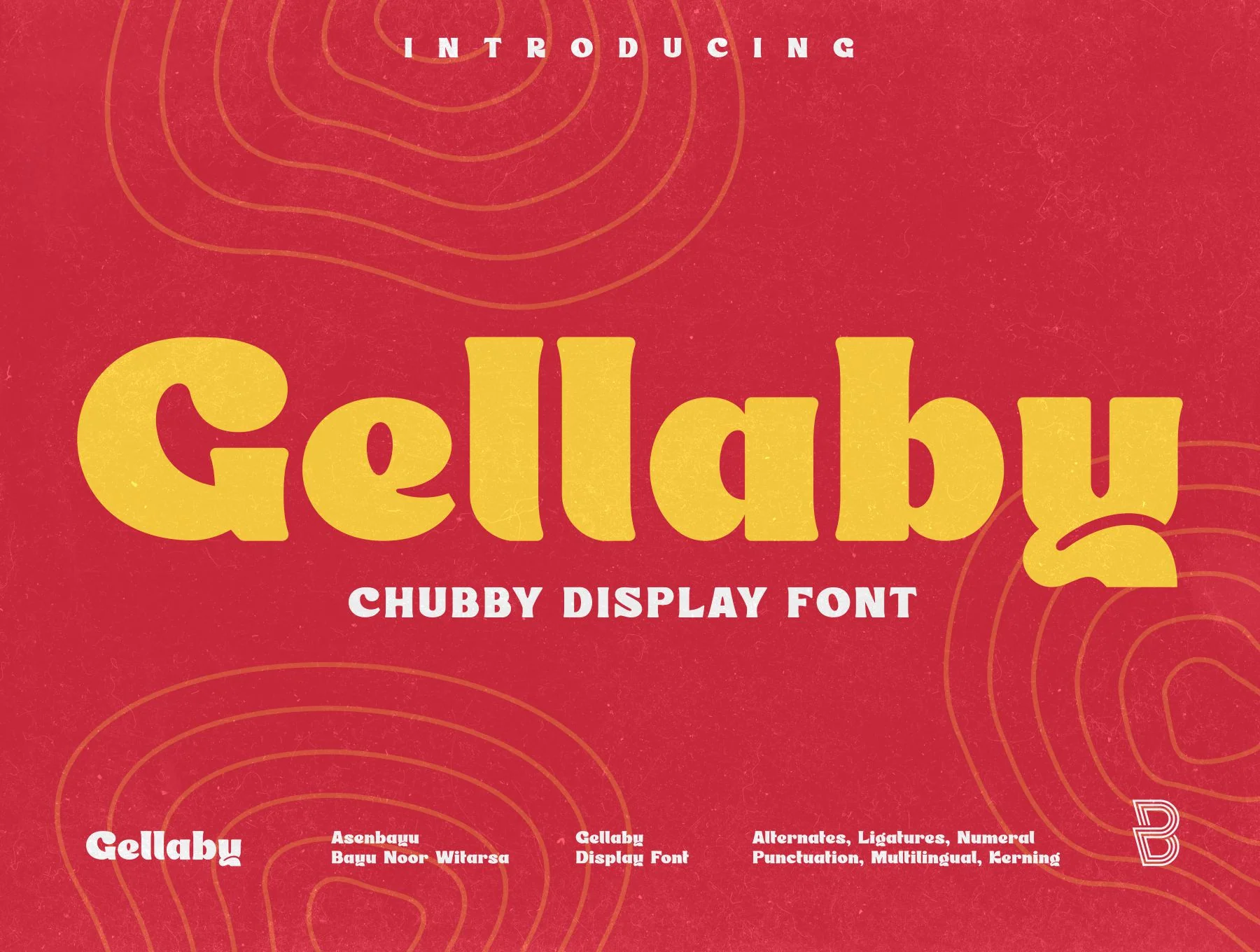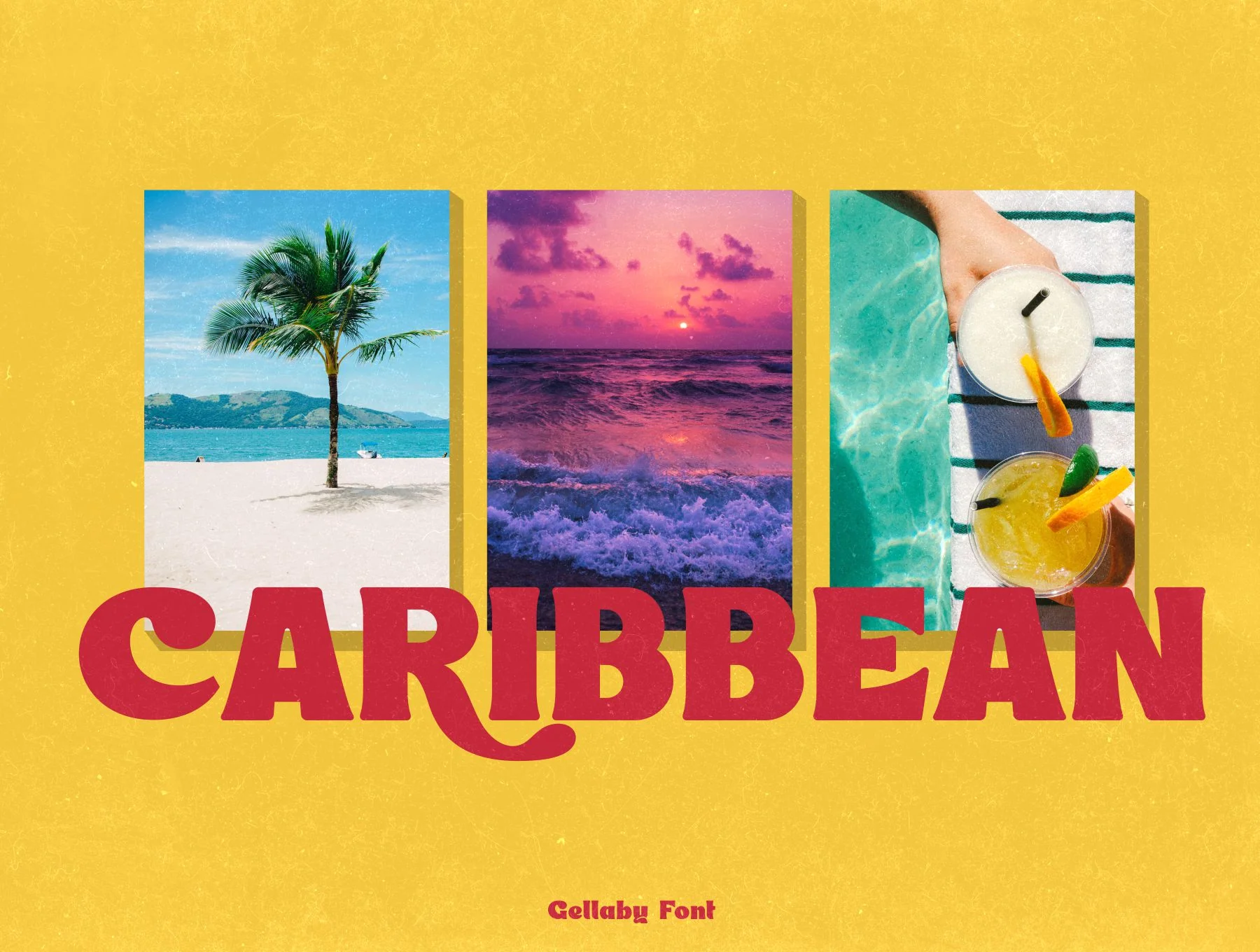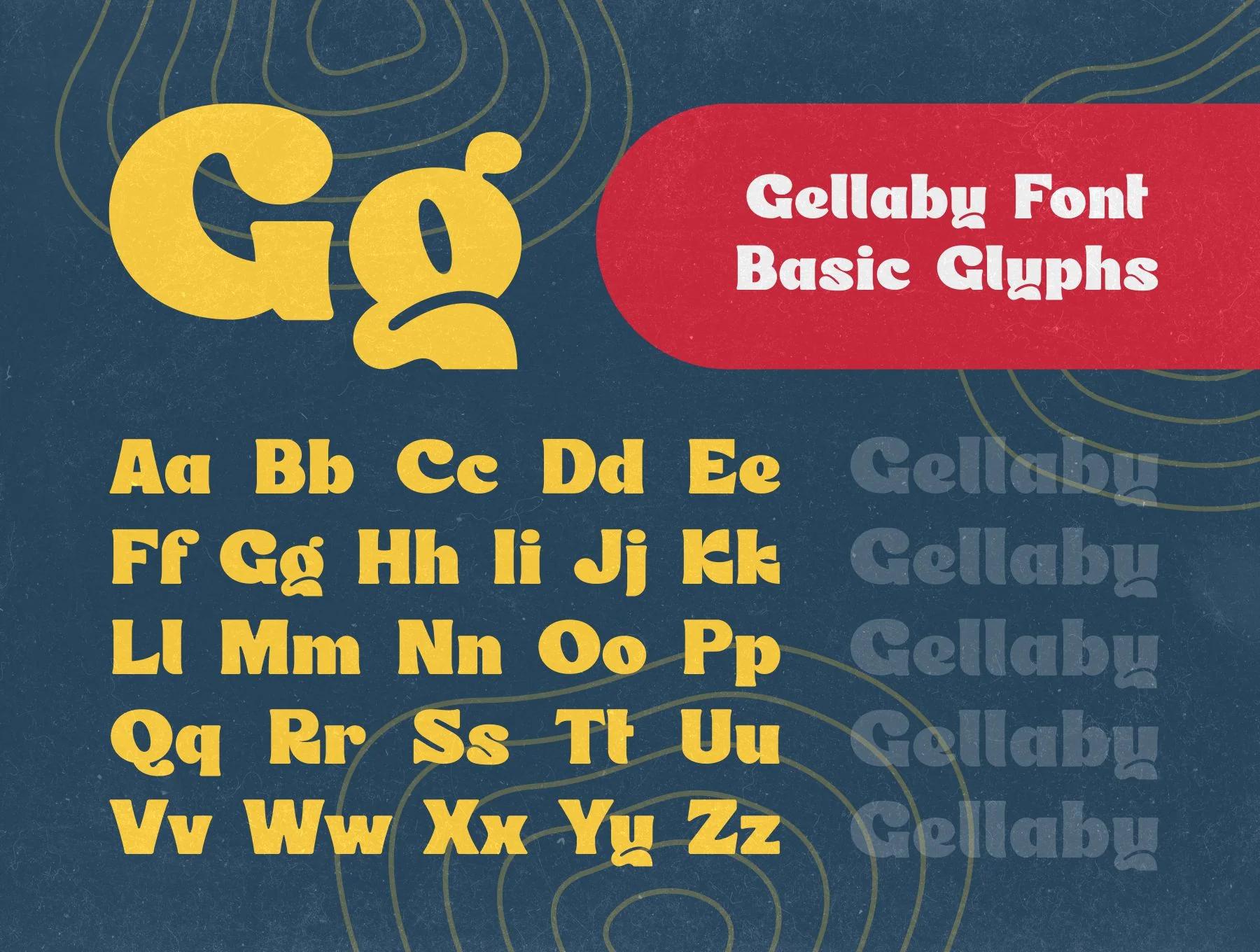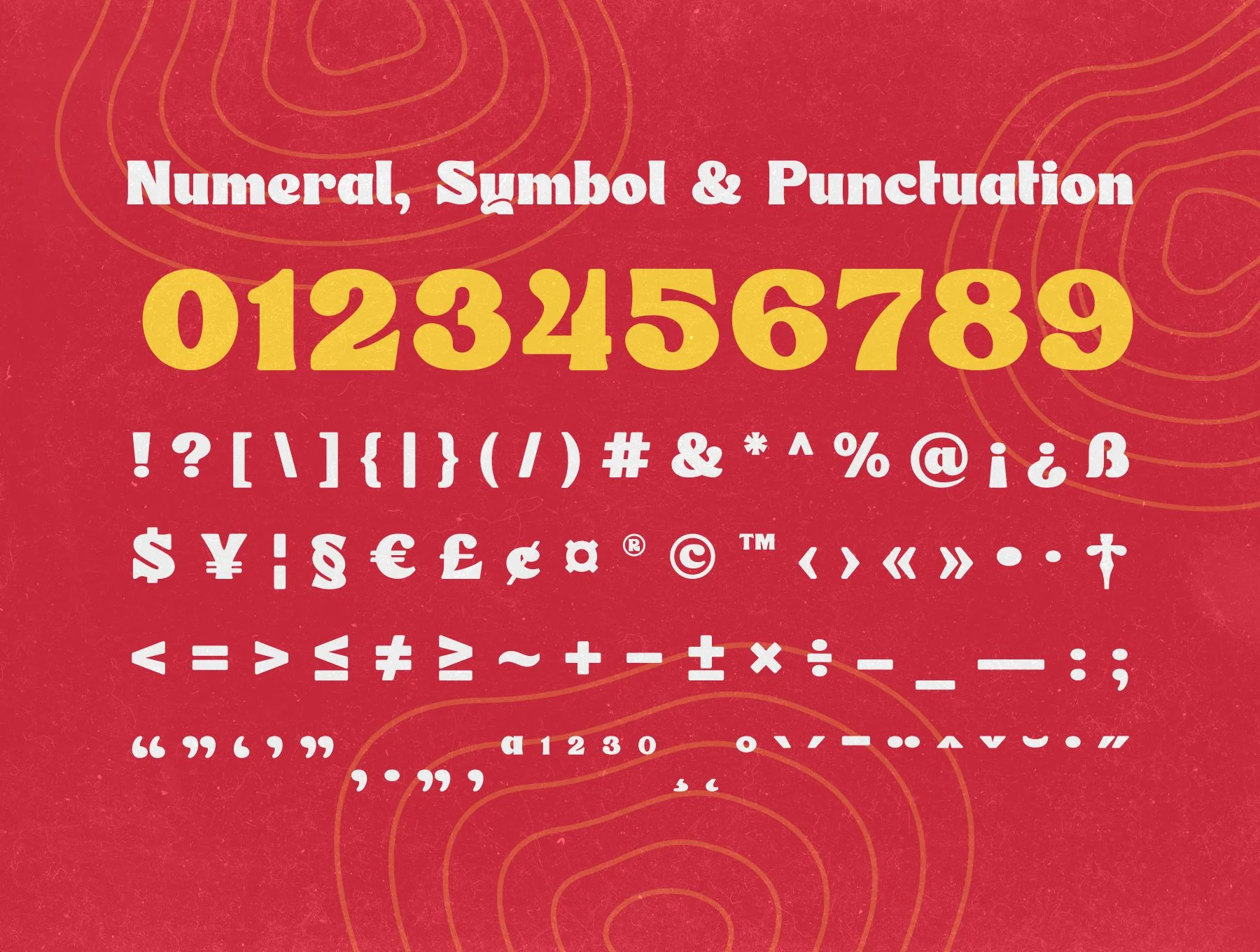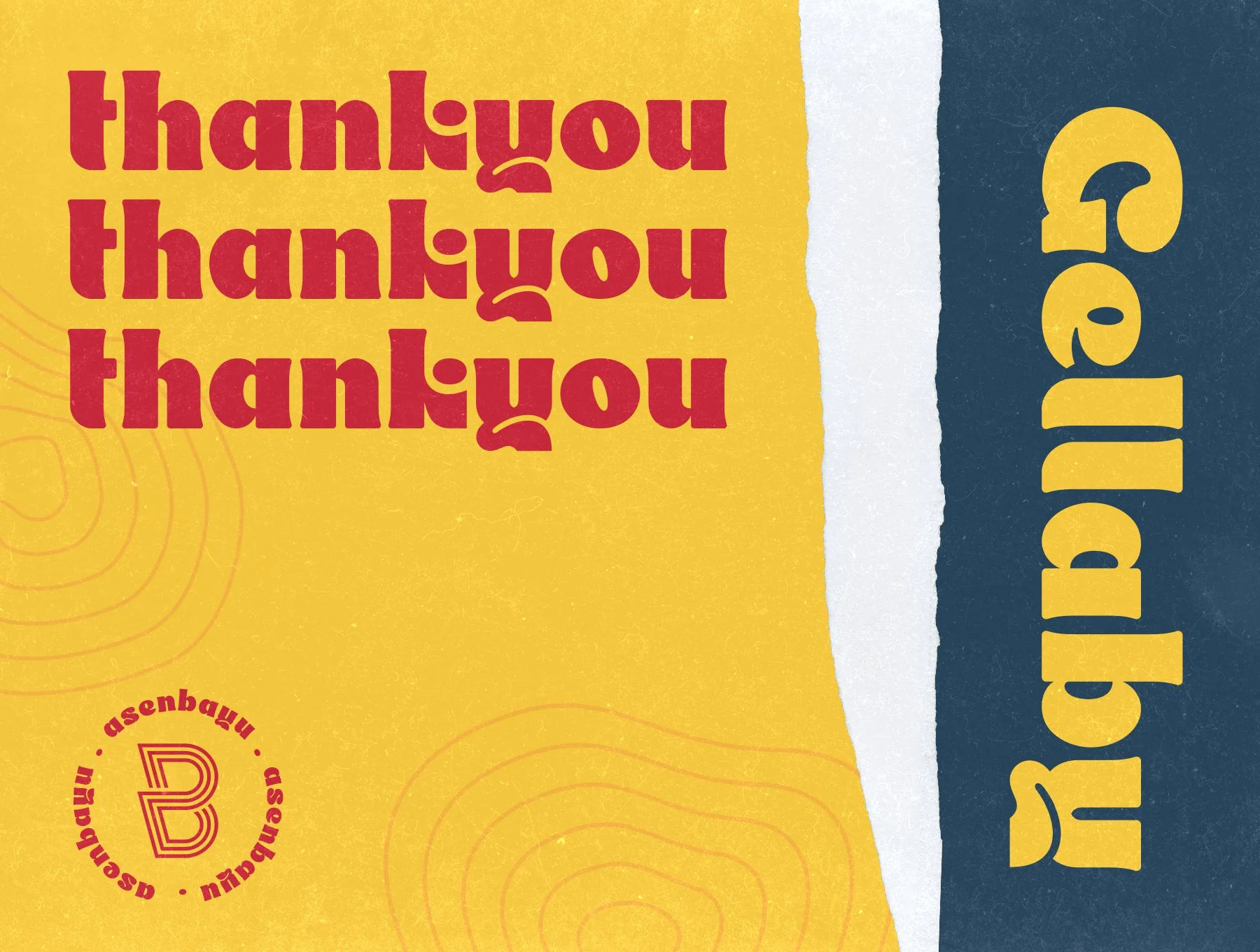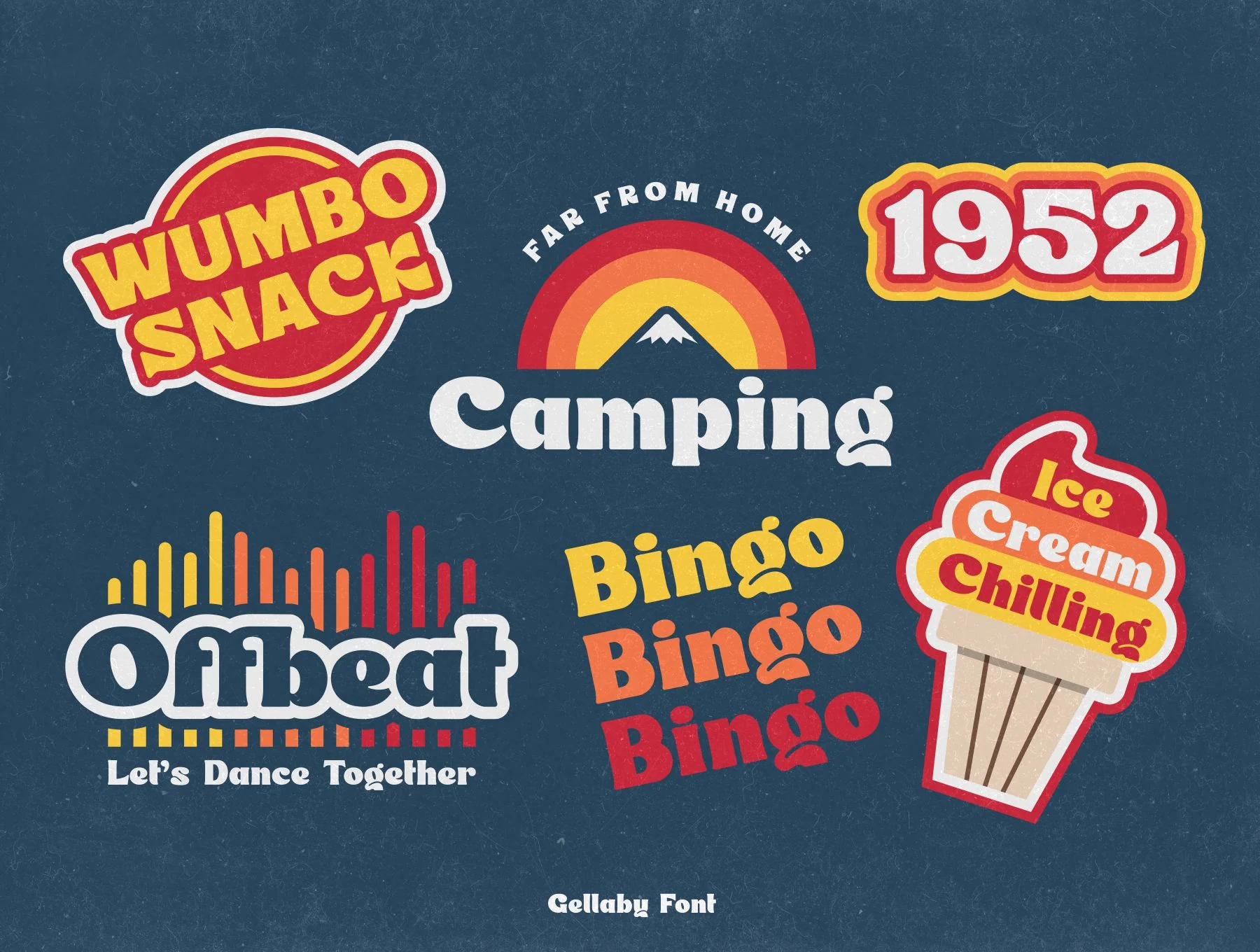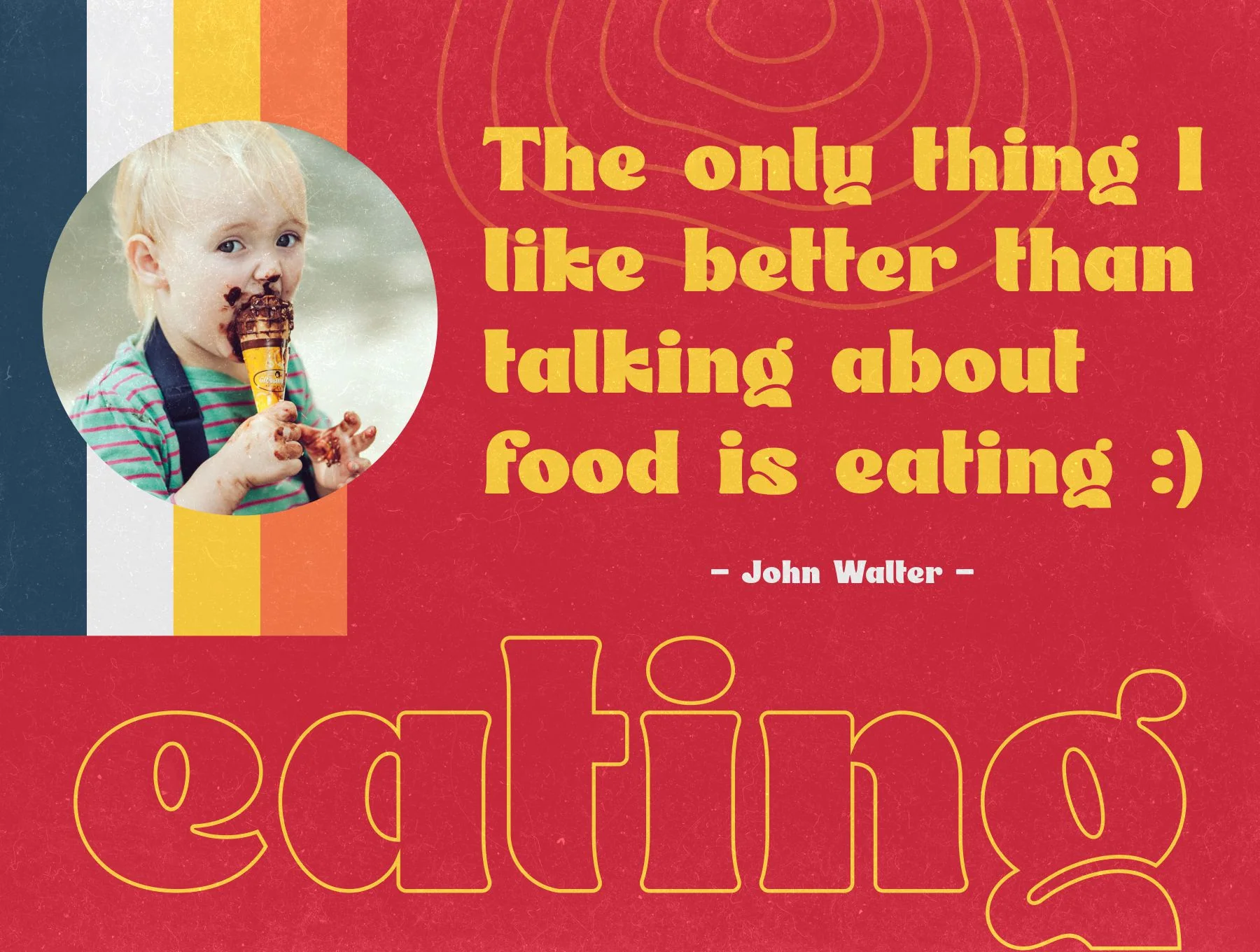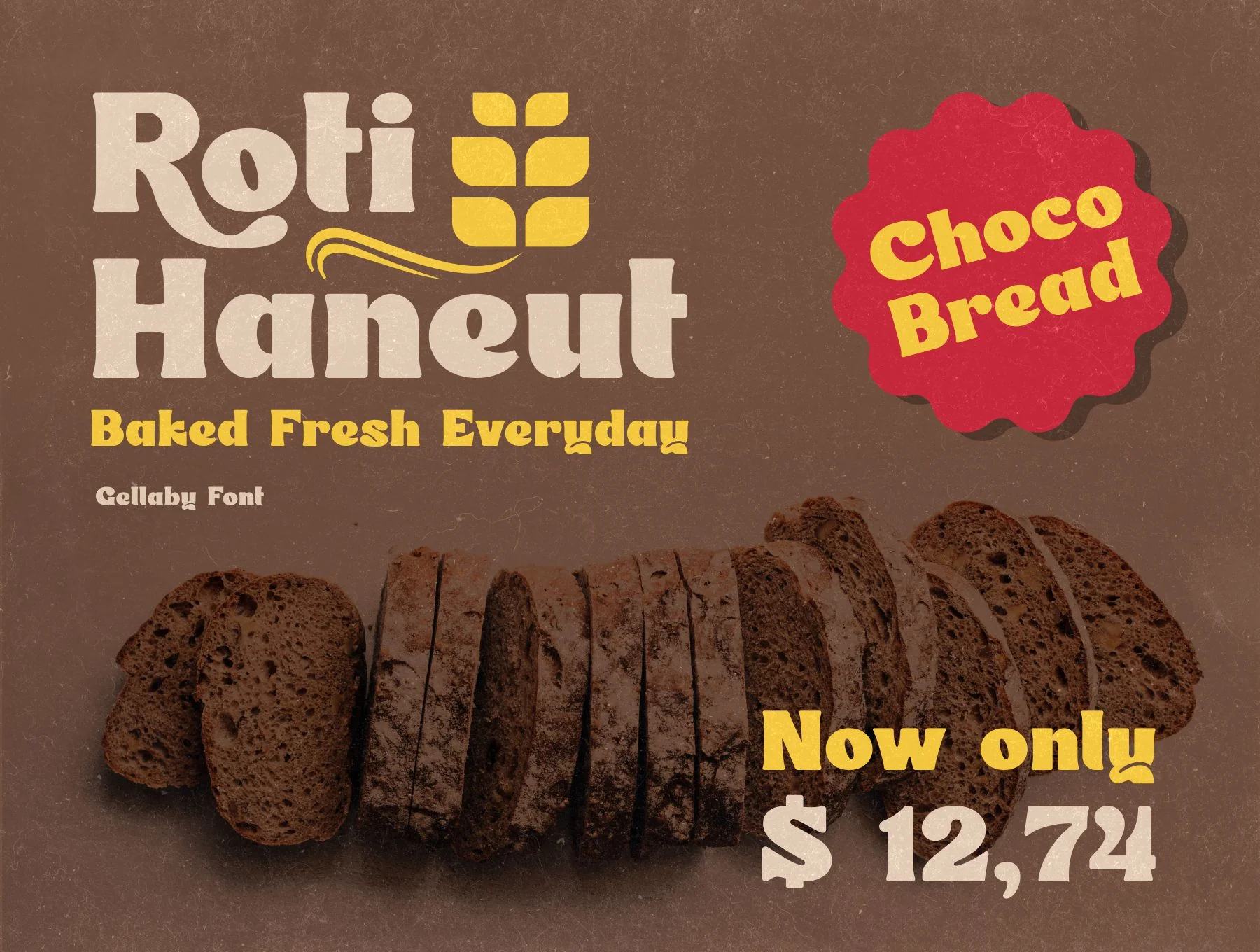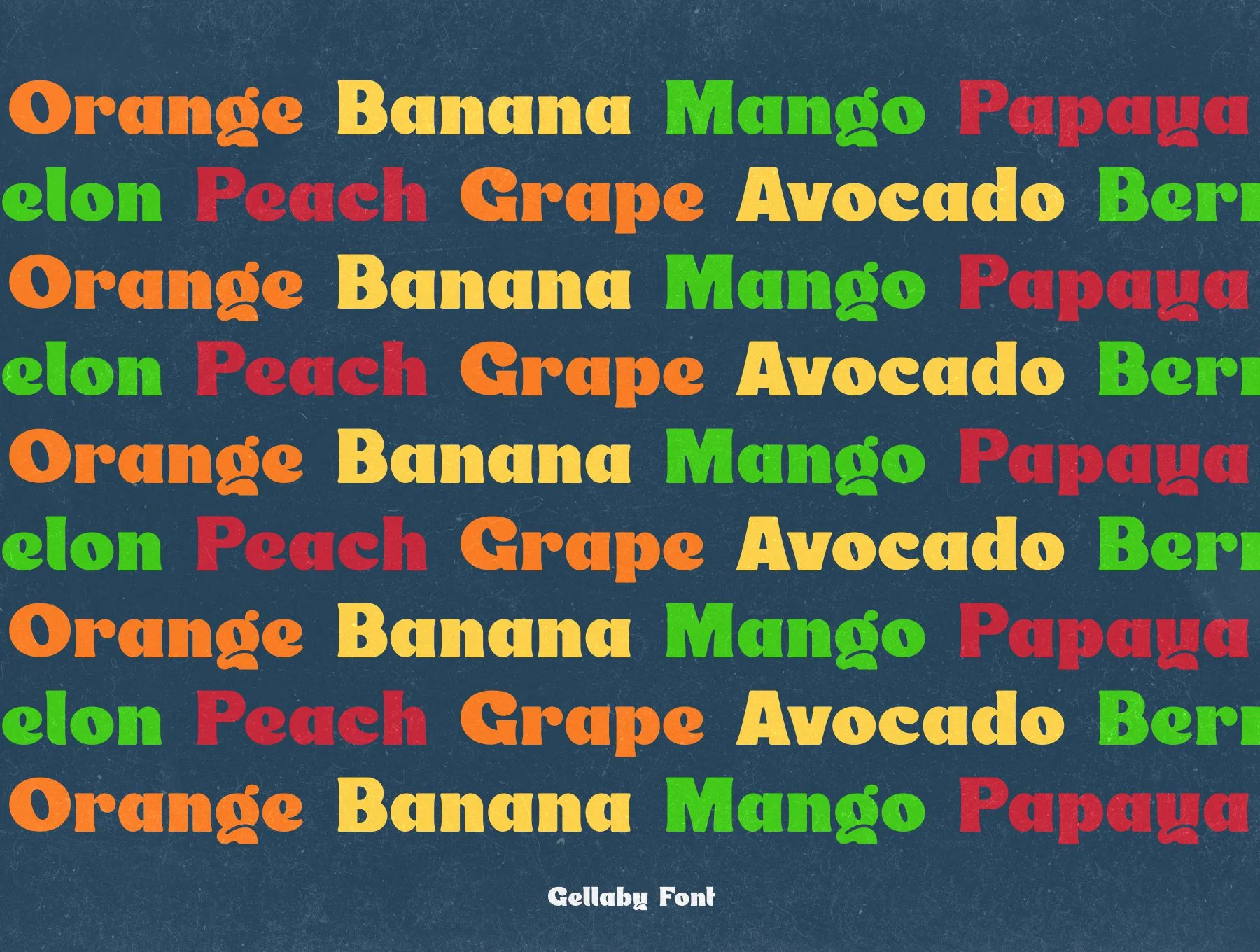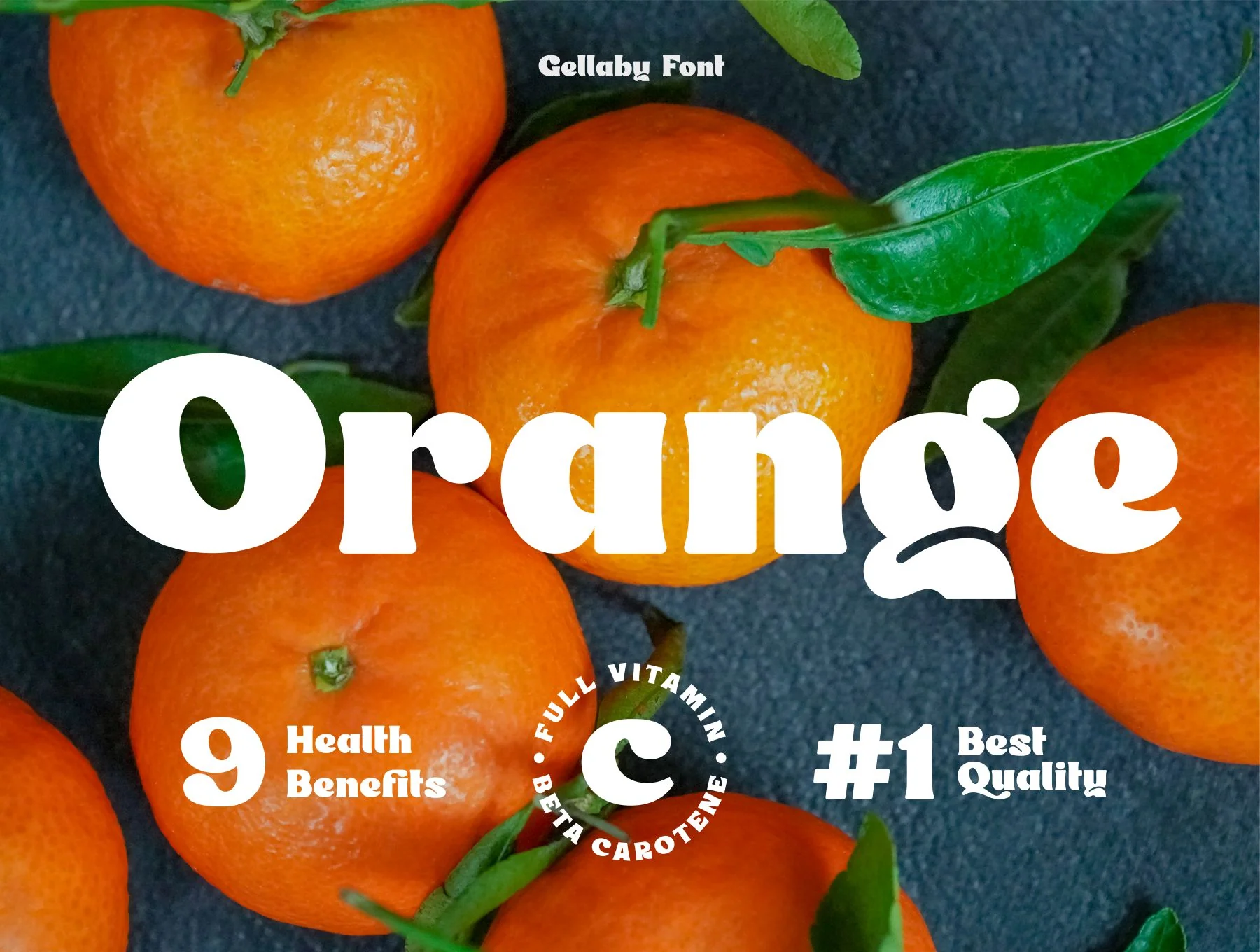
Gellaby Font
Distinctive Chunky Display Typeface
Alternate styles and joined glyphs
Gellaby is a chunky, distinctive semi-serif display typeface suited to retro, vintage, contemporary, and playful visuals. Ideal for branding, labels, posters, logos, magazines, headlines, stickers, and more. It comes in OTF and TTF with kerning, alternate styles, ligatures, uppercase, lowercase, numbers, punctuation, and multilingual support.